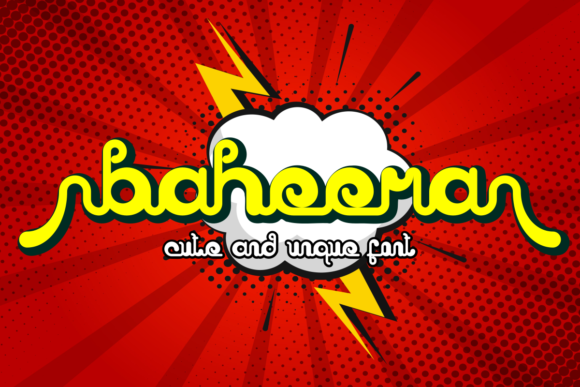
Unleash your creativity with Baheera Font, the captivating display font that dances across your designs with its exuberant energy. This font is the perfect choice for those seeking a distinctive touch, whether it's for wedding invitations that exude playfulness or branding projects that demand a dash of whimsy.
Baheera Font possesses an infectious charm, captivating your audience with its bouncy and quirky nature. Its vivacious strokes and playful curves create an inviting atmosphere that draws the eye and ignites the imagination. Whether you're designing posters, social media graphics, or product packaging, Baheera Font will infuse your creations with a sense of joy and vitality.
With Baheera Font, you have the power to transform ordinary designs into extraordinary masterpieces. Its presence commands attention, leaving a lasting impression that resonates with your audience. Embrace the uniqueness of Baheera Font and let your creative spirit soar.
Imagine your wedding invitations adorned with Baheera Font's delightful characters, each letter dancing in harmony to announce your special day. The font's inherent charm sets the tone for a celebration filled with laughter, love, and unforgettable memories.
Beyond wedding invitations, Baheera Font's versatility shines in branding projects. Its playful nature lends itself perfectly to creating logos, business cards, and marketing materials that exude a friendly and approachable aura. Whether your brand targets a young, trendy audience or those with a youthful spirit, Baheera Font will elevate your brand's identity and make it stand out from the crowd.